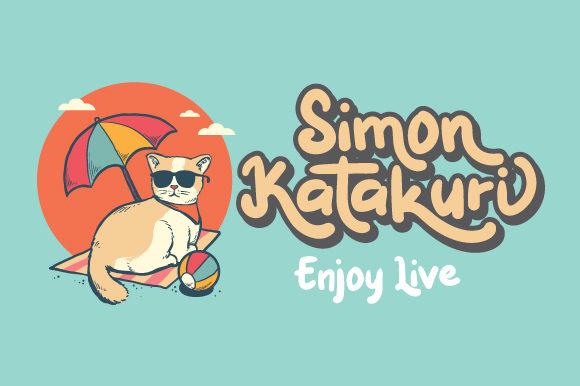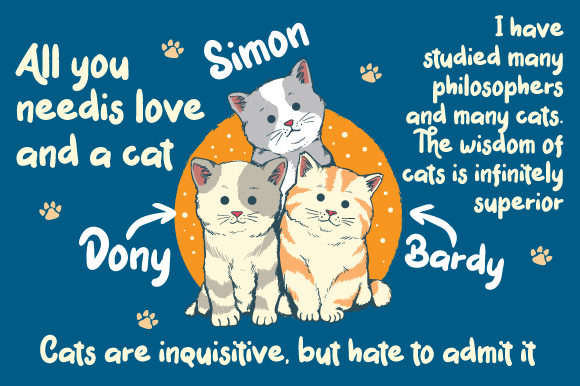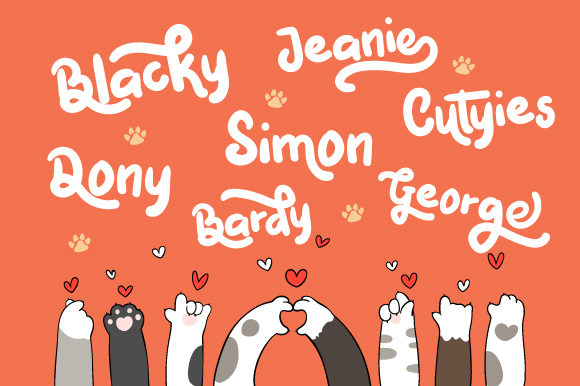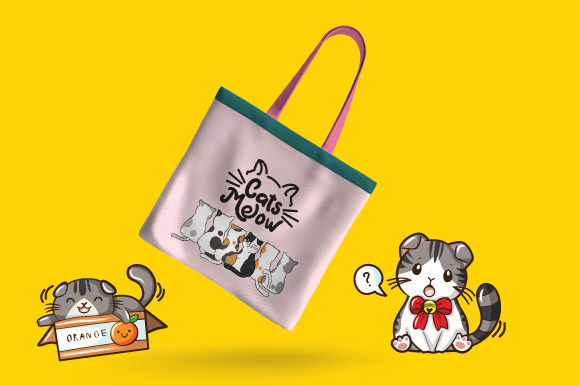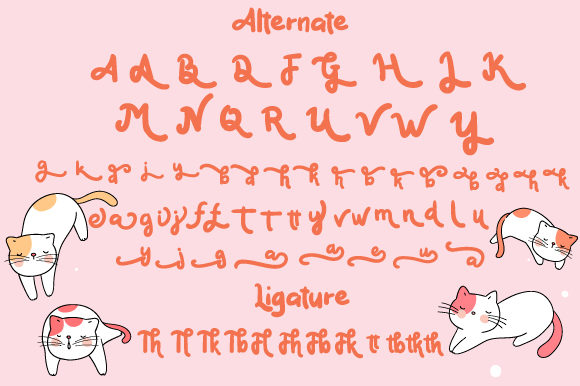
Introduction to Mark Catynia Font
Mark Catynia is a cute and casual display font with an incredibly friendly feel.
Key Features of Mark Catynia Font
Why Choose Mark Catynia Font?
Mark Catynia Font offers exceptional quality and versatility, making it a valuable addition to your design toolkit. Whether you’re creating for personal projects or commercial use, Mark Catynia Font delivers professional results.